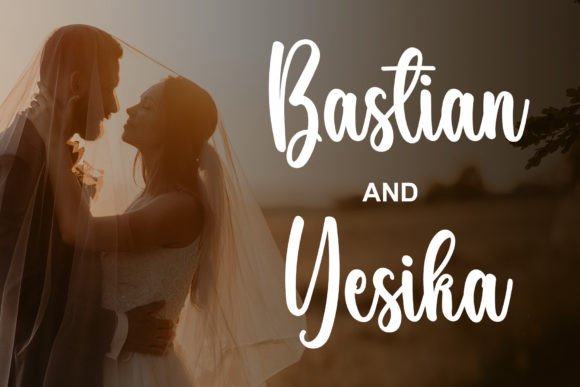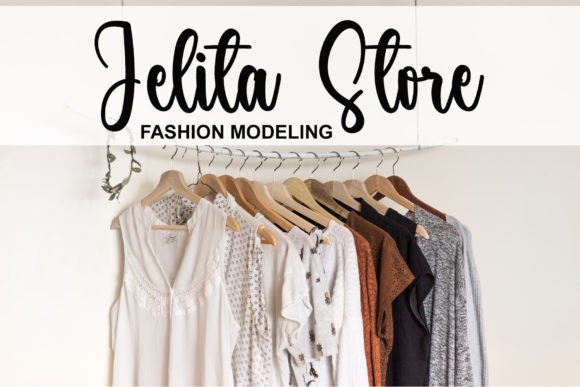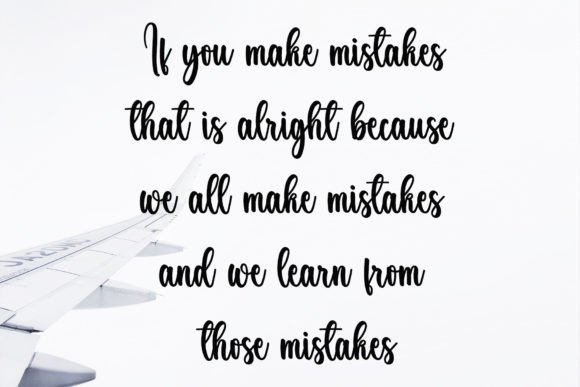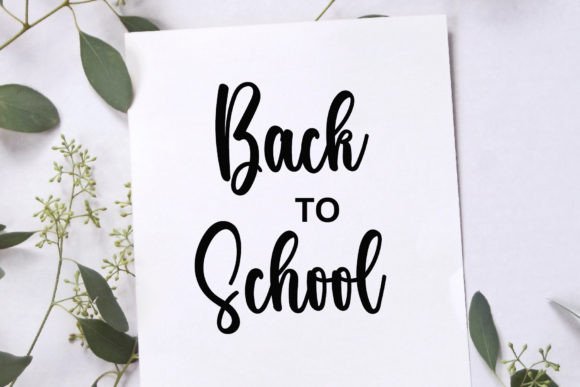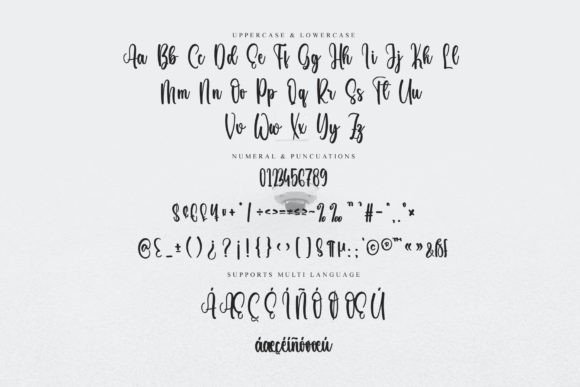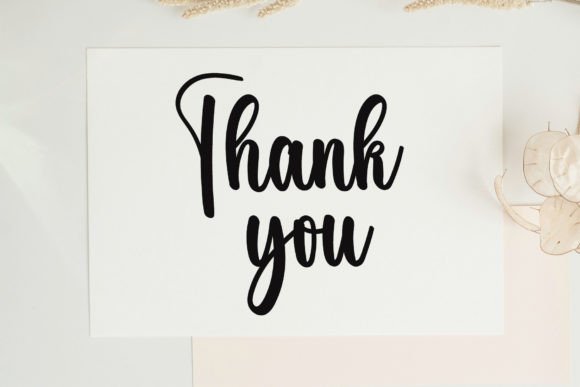
Introducing Elastic Font: The Modern and Friendly Handwritten Font
Are you a designer or crafter looking for a versatile and visually appealing font to elevate your creative projects? Look no further than Elastic Font, a modern and friendly handwritten font that is sure to become a valuable addition to your font library.
What is Elastic Font?
Elastic Font is a beautifully crafted handwritten font that exudes a sense of warmth and approachability. Its modern and clean design makes it perfect for a wide range of applications, from digital marketing materials to print projects, and everything in between.
Key Features of Elastic Font
- Highly detailed and neatly crafted design: Elastic Font boasts a highly detailed and neatly crafted design that sets it apart from other handwritten fonts.
- Versatile and adaptable: Whether you’re working on a digital project, a print project, or anything in between, Elastic Font is the perfect choice.
- Modern and friendly feel: Elastic Font has a modern and friendly feel that makes it perfect for projects that require a personal touch.
Why Choose Elastic Font?
So, why should you choose Elastic Font for your next project? Here are just a few compelling reasons:
- Enhance your creations: Elastic Font has the potential to enhance any creation, making it a valuable addition to your font library.
- Stand out from the crowd: With its unique and modern design, Elastic Font is sure to help your projects stand out from the crowd.
- Easy to read and understand: Elastic Font is highly legible, making it easy for your audience to read and understand your message.
Use Cases for Elastic Font
Elastic Font is a versatile font that can be used in a wide range of applications, including:
- Digital marketing materials: Elastic Font is perfect for digital marketing materials, such as social media graphics, email headers, and website content.
- Print projects: Elastic Font is also well-suited for print projects, such as brochures, flyers, and business cards.
- Crafting and DIY projects: Elastic Font can add a personal touch to your crafting and DIY projects, such as handmade cards, gift tags, and scrapbooking.
Tips for Using Elastic Font
Here are a few tips for getting the most out of Elastic Font:
- Experiment with different sizes and colors: Elastic Font looks great in a variety of sizes and colors, so don’t be afraid to experiment and find the perfect combination for your project.
- Pair with other fonts: Elastic Font can be paired with other fonts to create a unique and visually appealing combination.
- Use for headlines and body text: Elastic Font is highly legible, making it perfect for both headlines and body text.
| Font Name | Elastic Font |
| Author | 21Design |
In conclusion, Elastic Font is a modern and friendly handwritten font that is sure to become a valuable addition to your font library. Its highly detailed and neatly crafted design, versatile and adaptable nature, and modern and friendly feel make it perfect for a wide range of applications. Whether you’re a designer or crafter, Elastic Font is a great choice for any project that requires a personal touch.